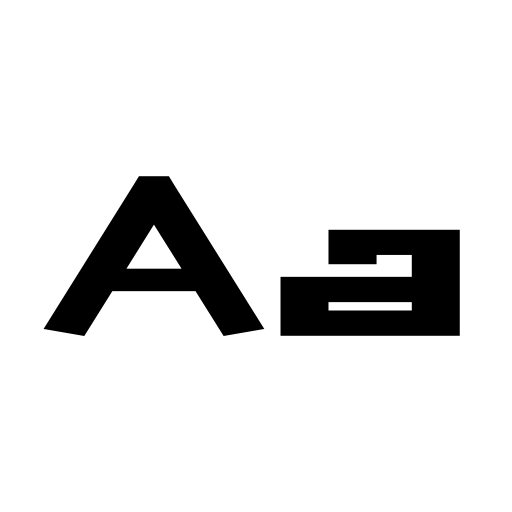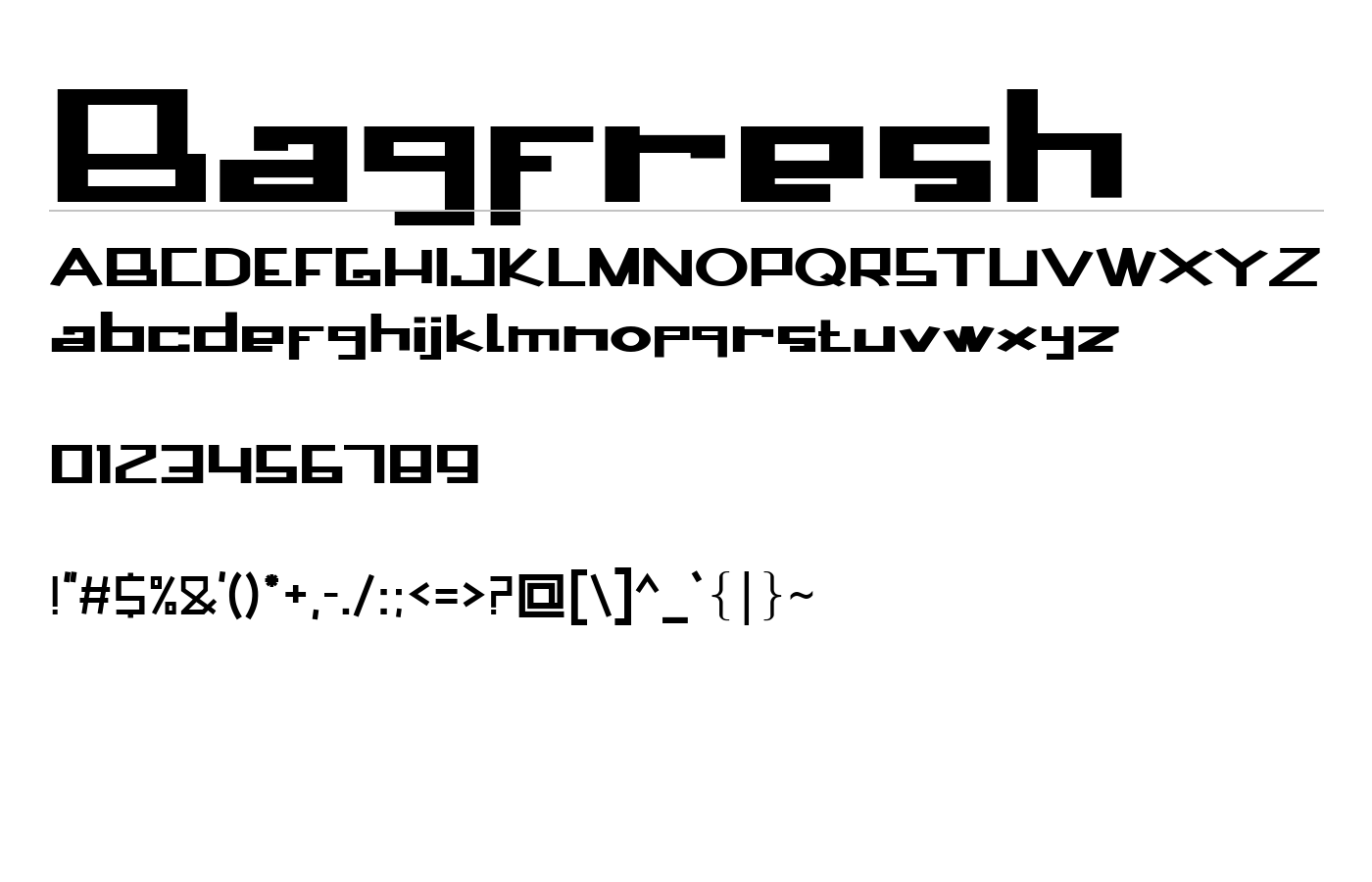
Bagfresh is a bold, geometric sans serif font with a futuristic and edgy personality. Its strong rectangular shapes, single-story letters, and consistent stroke weight give it a modern, tech-inspired look that works well for headlines, logos, and branding in digital or sci-fi contexts. This font’s unique, angular forms make it stand out and add a sleek, contemporary feel to any design.
Bagfresh Font
About Bagfresh Font